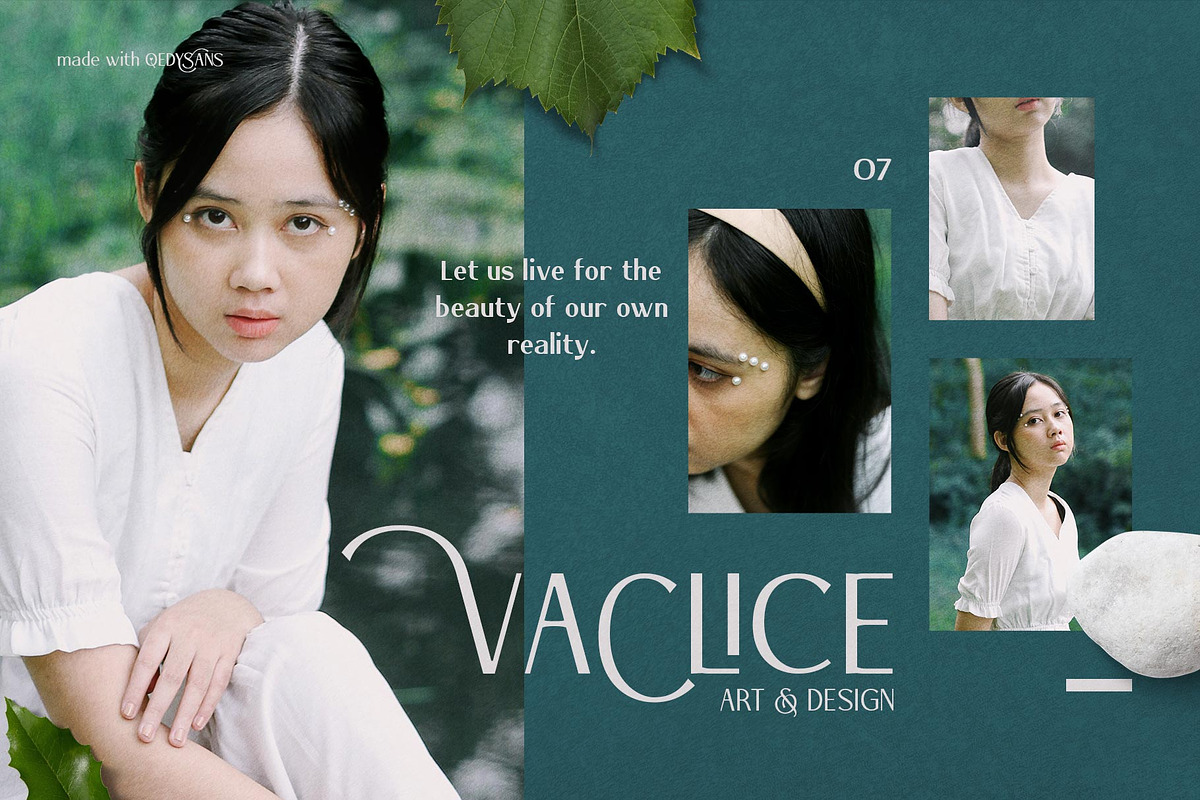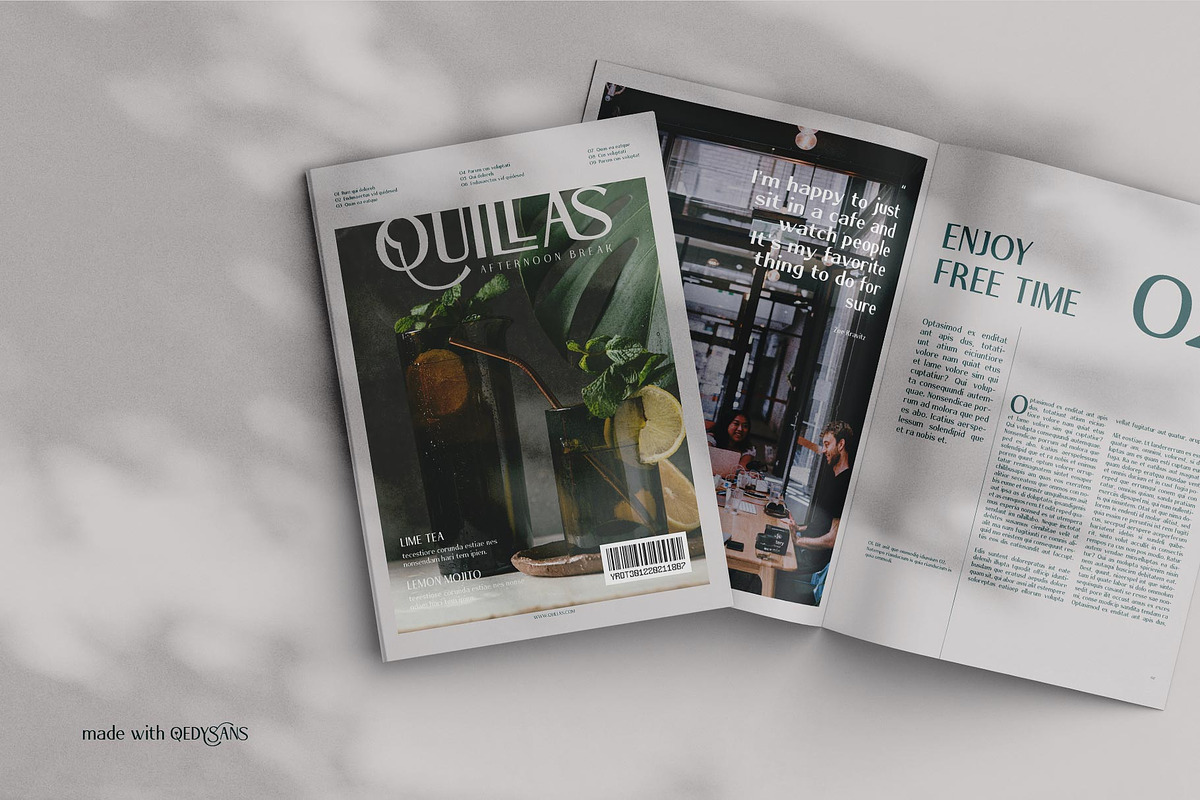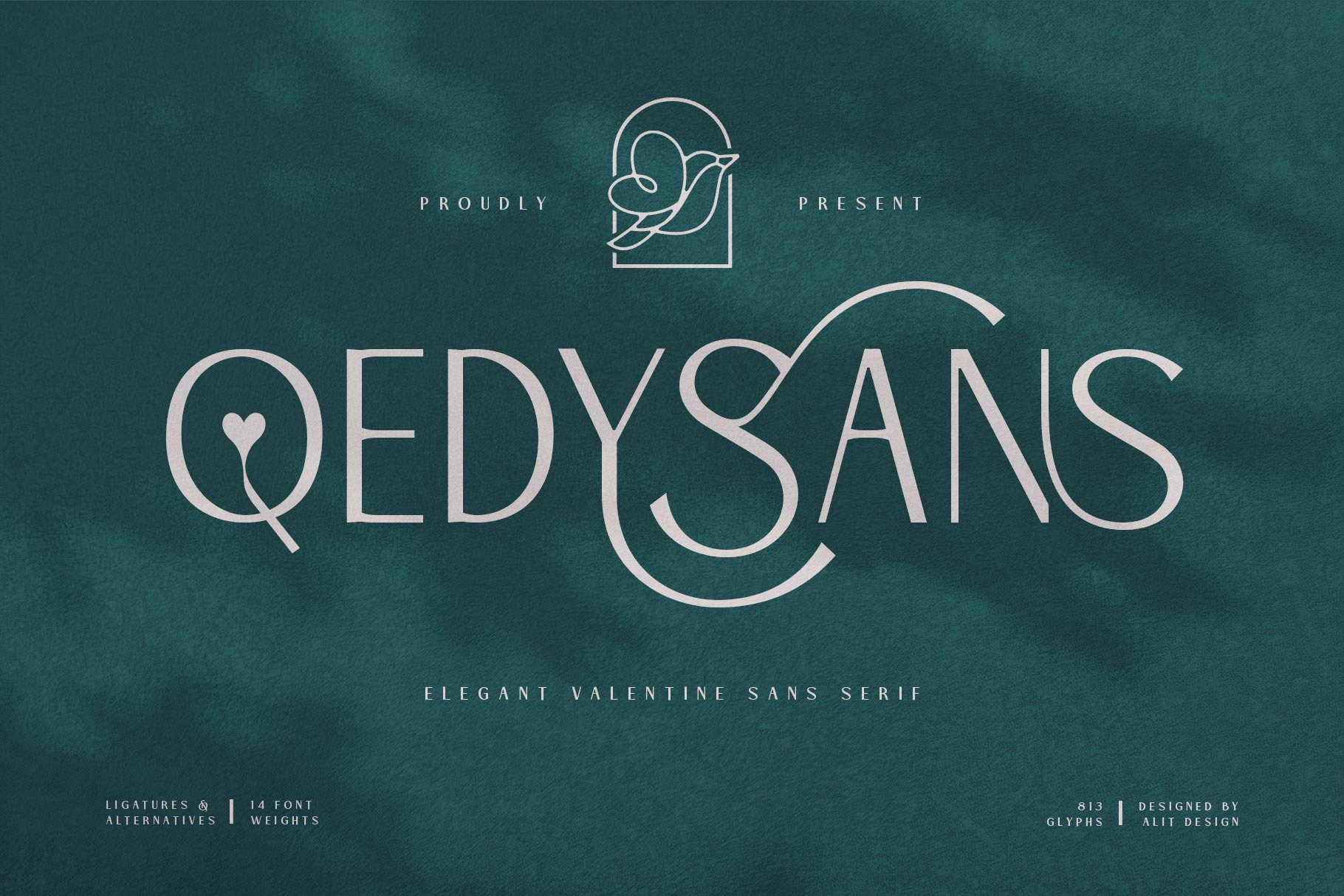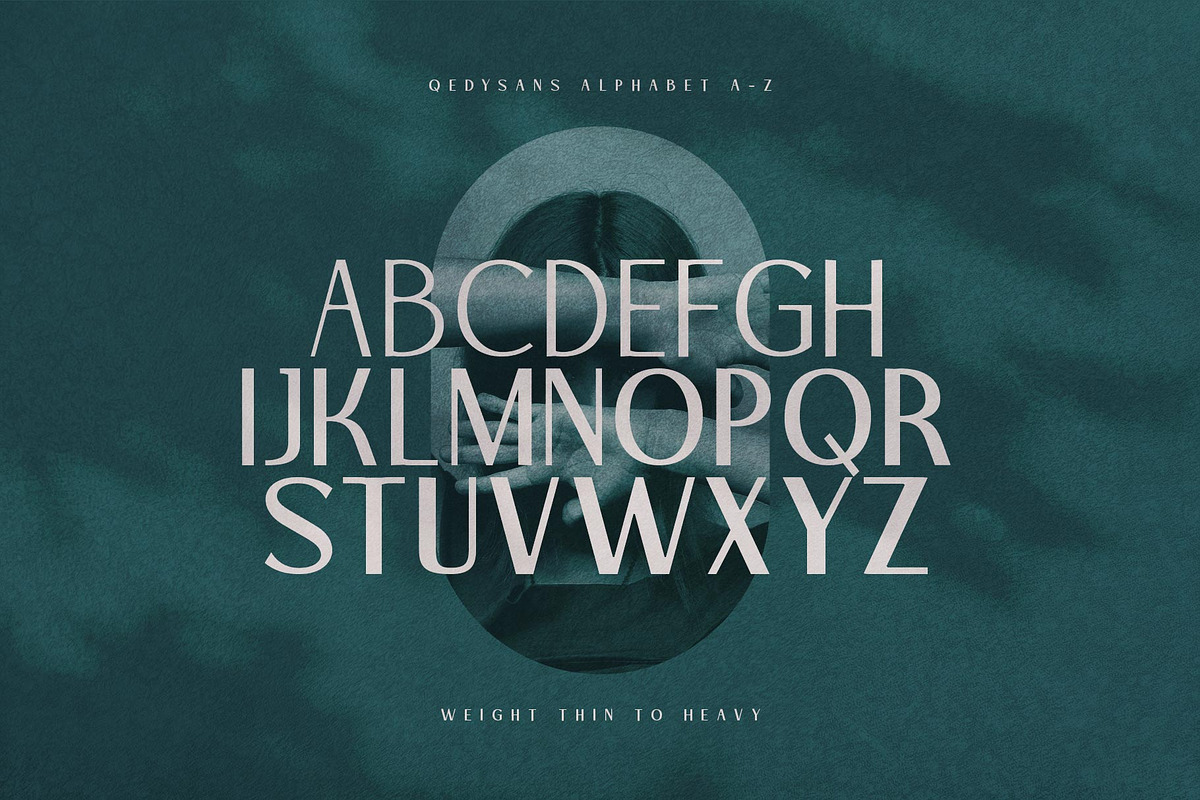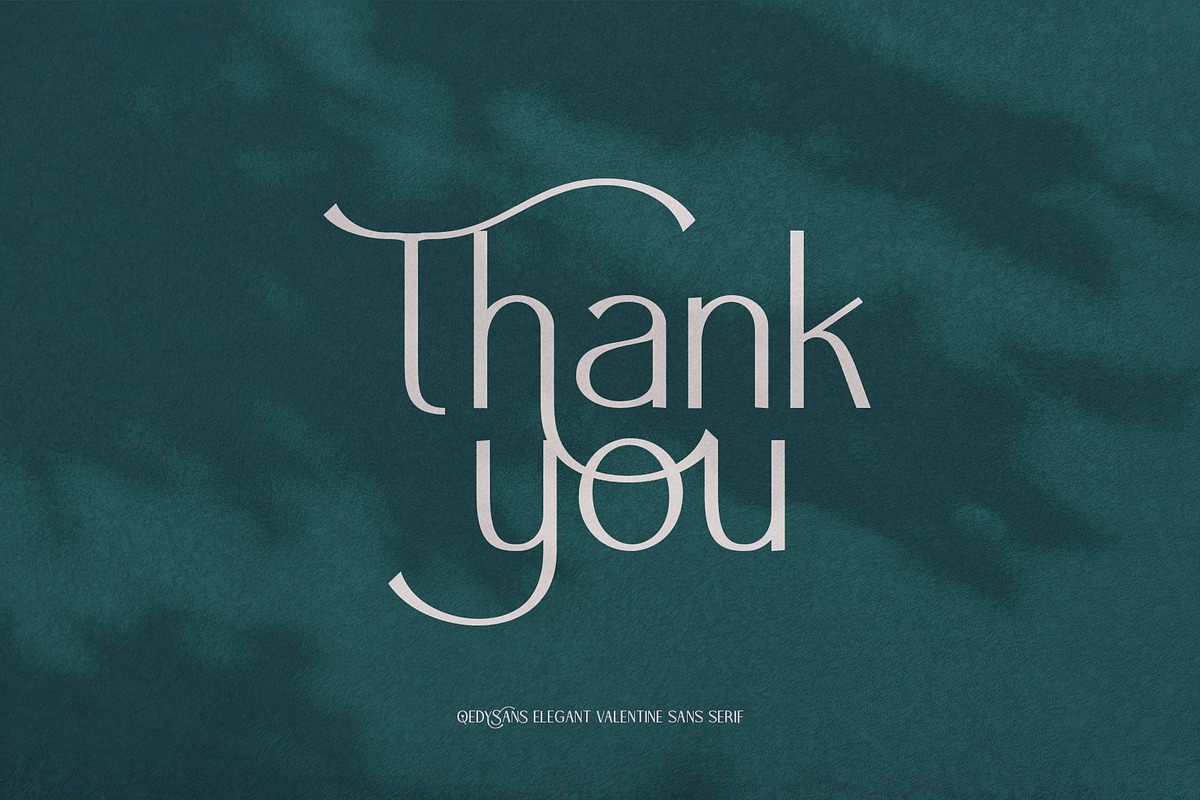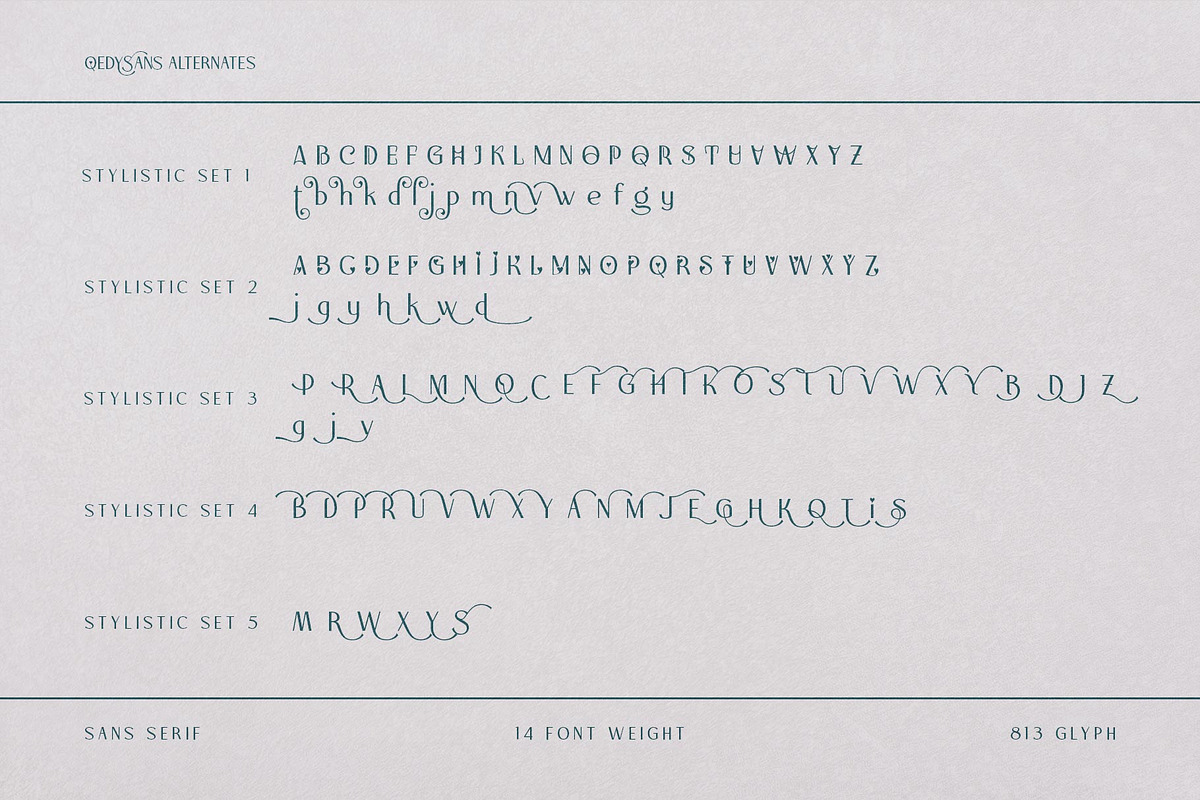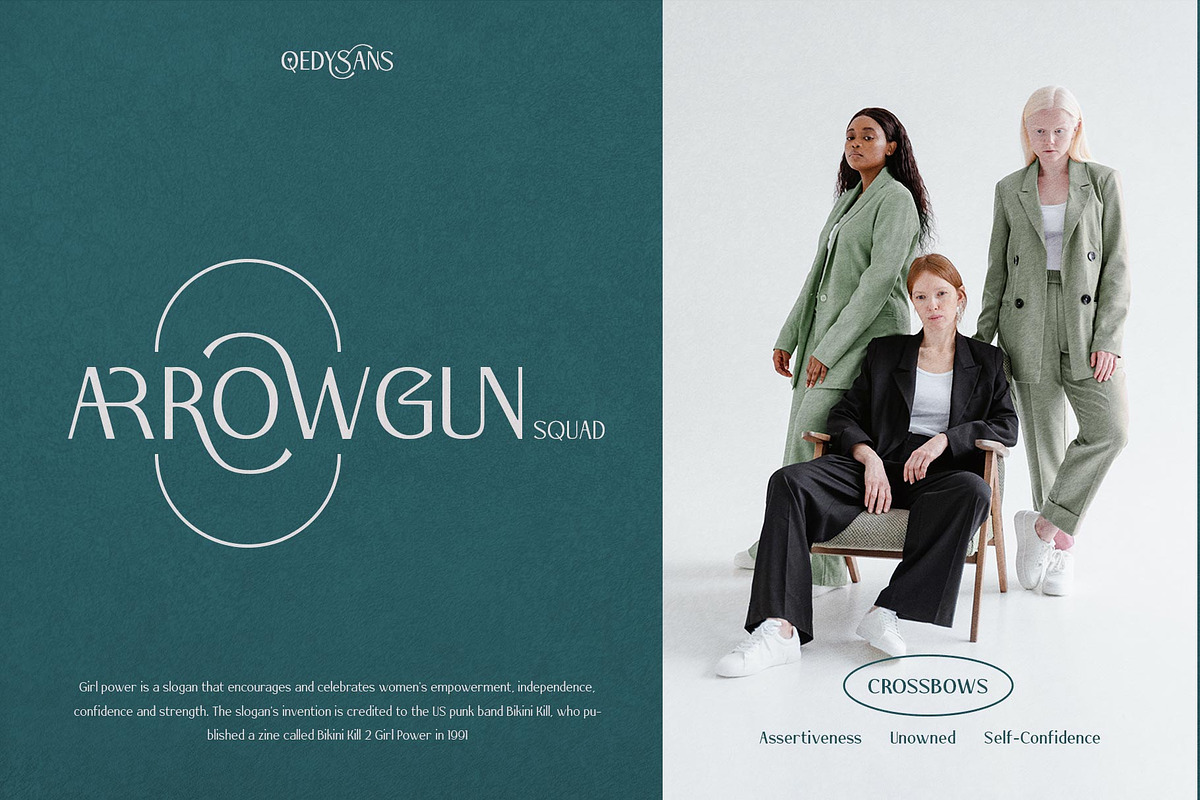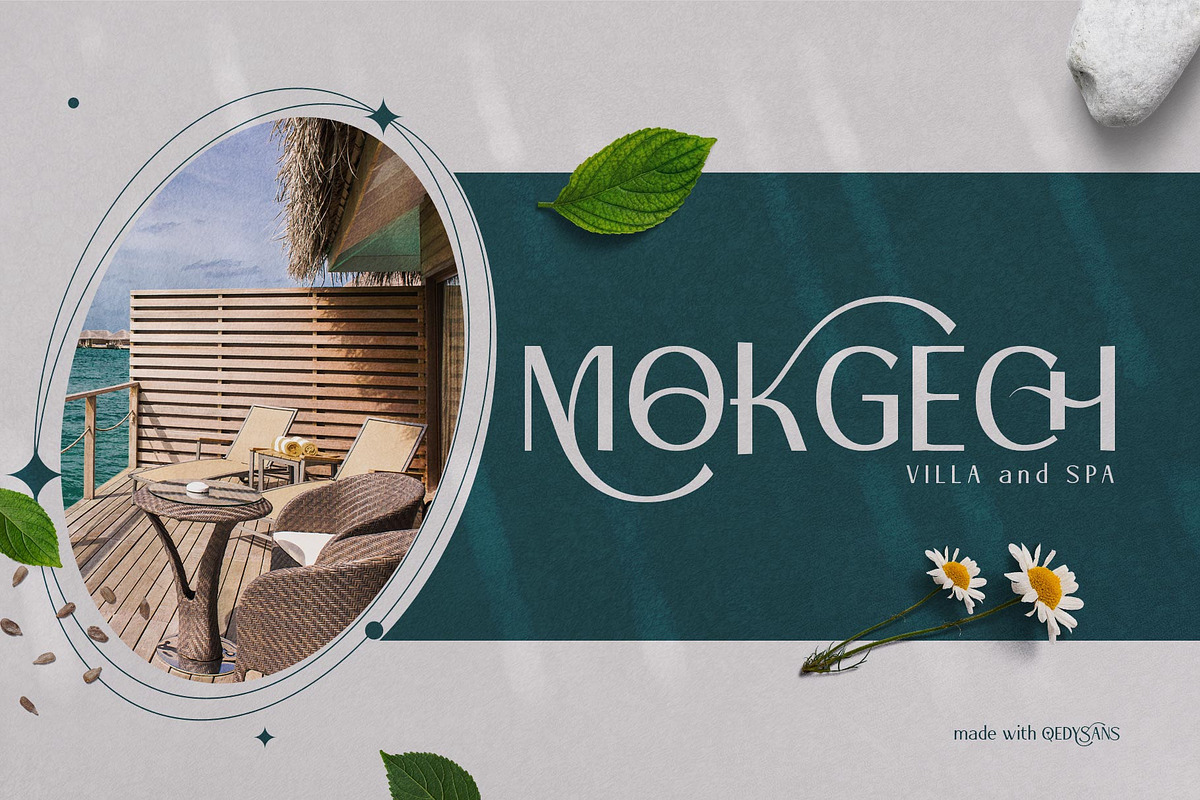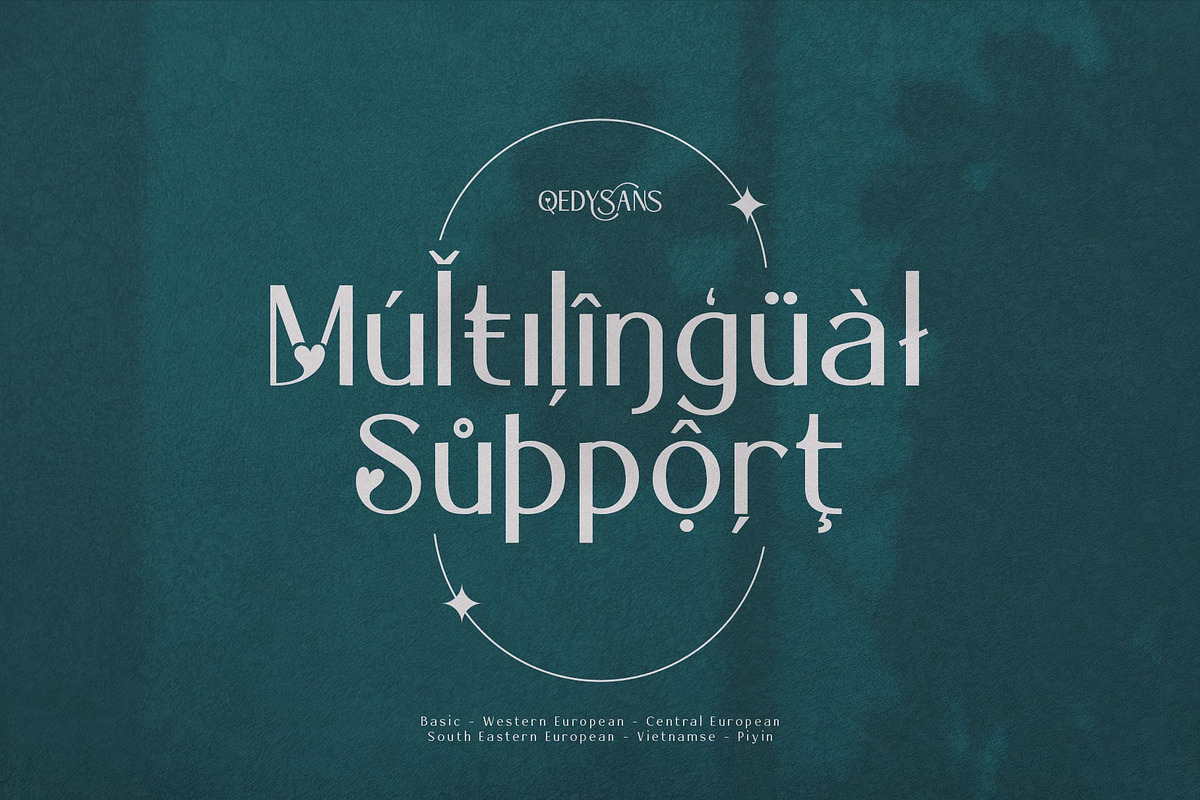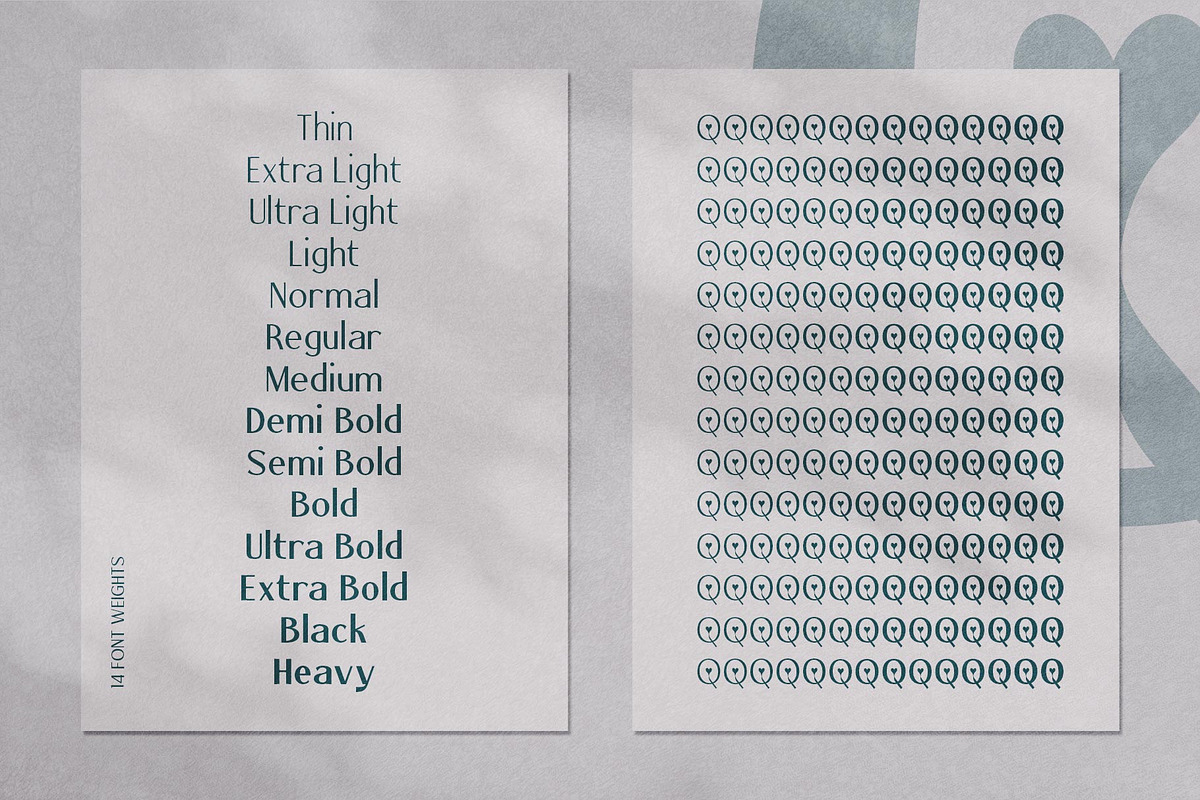
Qedysans Typeface
Introducing QEDYSANS Typeface
💚💚QEDYSANS💚💚is a sans serif font that has an elegant romantic concept, supported by 813 glyphs. The QEDYSANS font has a lot of alternative characters, from swash, ligature and of course it is also supported by multilingualism. In addition, QEDYSANS also has 14 families from Thin to Heavy. So it can be used for body text and header text.
Qedysans is very suitable for design concepts that are elegant, simple, minimalist and romantic. Can be used for wedding card designs, shop signs, logotypes, promotions on Instagram and so on.